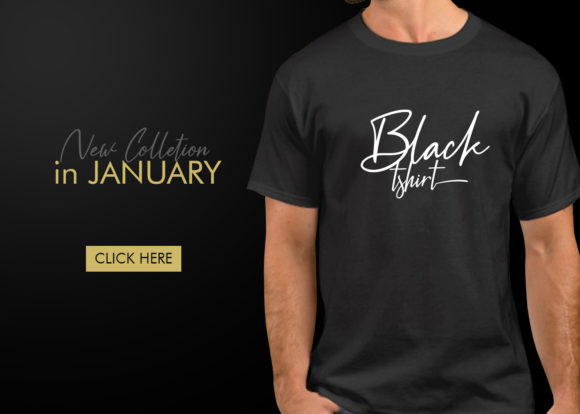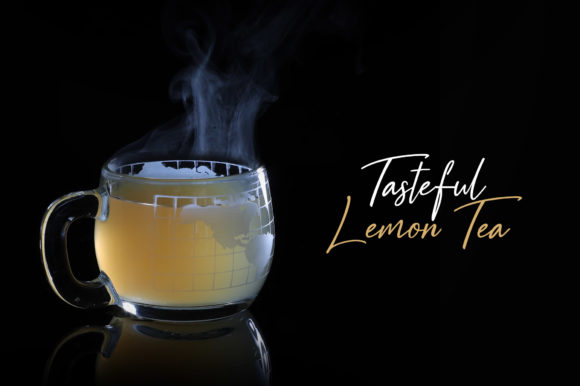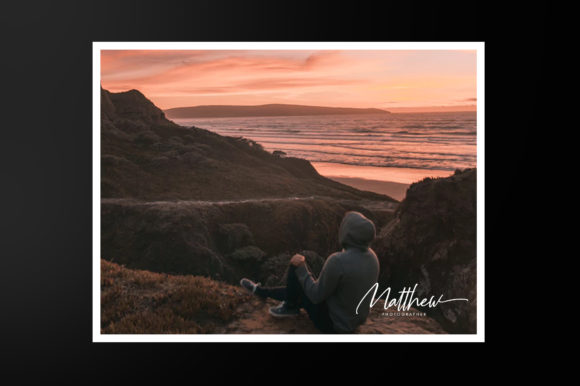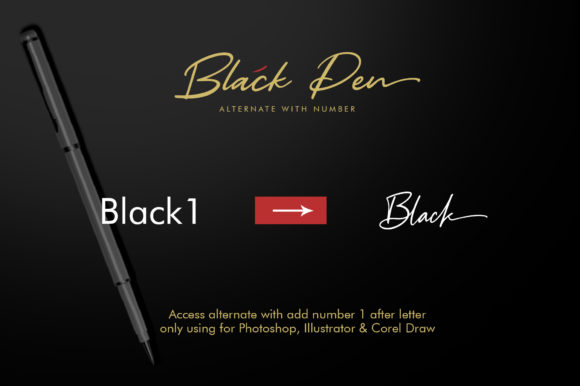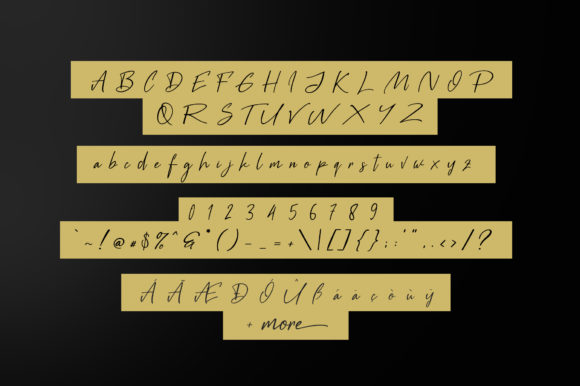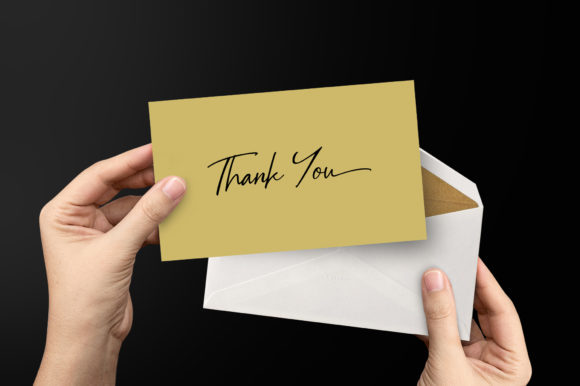
Introducing the Black Pen Script Font: Elevate Your Designs with Elegance and Fun
Are you on the lookout for a font that combines fun and elegance to take your designs to the next level? Look no further than the Black Pen Script Font. This fresh and unique script font is perfect for designers and crafters seeking to add a touch of sophistication and playfulness to their work. Whether you’re creating a logo, poster, wedding invitation, or any other design project, the Black Pen Script Font is an excellent choice.
What Makes the Black Pen Script Font Special?
The Black Pen Script Font stands out from the crowd with its distinctive characteristics:
- Fun and Elegant Feel: This font strikes the perfect balance between fun and elegance, making it versatile for various design projects.
- Unique Script Style: Its unique script style ensures that your designs will have a personalized touch that sets them apart.
- Wide Range of Applications: From logos and posters to wedding invitations and more, this font can be used in a multitude of design projects.
The Perfect Tool for Designers and Crafters
For designers and crafters, finding the right font can be a game-changer. The Black Pen Script Font offers:
- Easy Readability: Despite its script nature, this font maintains excellent readability, ensuring your message is conveyed clearly.
- Customization Options: With a font like Black Pen, you have ample opportunities to experiment with different sizes, colors, and styles to match your design vision.
- Instant Professionalism: The elegant feel of this font instantly adds a level of professionalism to your designs, making them suitable for both personal and commercial use.
The Bonus: Night in Kansas Font
But that’s not all. The Black Pen Script Font comes with an exciting bonus – the Night in Kansas font. This additional font provides even more flexibility and creative options for your designs. Imagine being able to mix and match styles within the same project, creating a truly unique visual experience.
Applications of the Black Pen Script Font
The versatility of the Black Pen Script Font means it can be used in a wide array of projects, including:
- Logos and Branding: Create a memorable logo that speaks to your brand’s personality.
- Wedding Invitations: Add an elegant touch to your wedding invitations and save-the-date cards.
- Posters and Flyers: Stand out with eye-catching posters and flyers that capture attention.
- Digital Content: Enhance your digital content, such as blog headers, social media graphics, and email newsletters.
The Black Pen Script Font, accompanied by the Night in Kansas bonus font, offers designers and crafters a powerful tool to elevate their designs. With its unique blend of fun and elegance, this font is sure to inspire creativity and add a professional touch to any project. Whether you’re a seasoned designer or a crafting enthusiast, the Black Pen Script Font is an invaluable addition to your font collection.